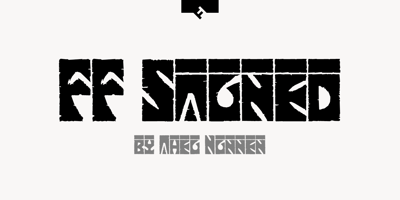
FF Stoned Font Family was designed by Theo Nonnen and published by FontFont. FF Stoned contains 15 styles and family package options. German type designer Theo Nonnen created this display FontFont in 1996. The family has 15 weights, and is ideally suited for advertising and packaging, festive occasions as well as film and tv. FF Stoned provides advanced typographical support with features such as ligatures. It comes with tabular lining, proportional oldstyle, and proportional lining figures.